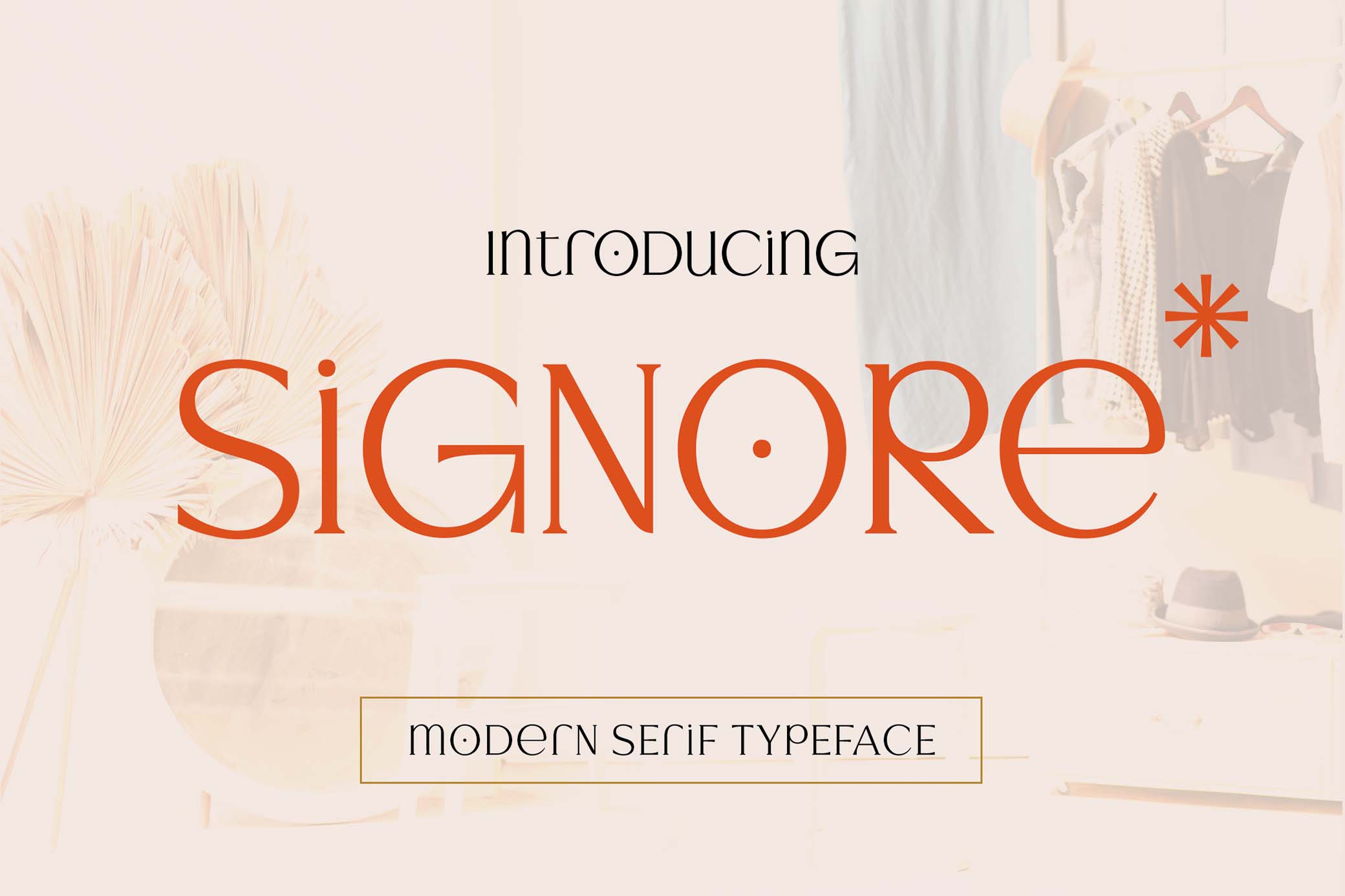
Signore Serif Typeface
The Signore Serif Typeface is perfect for luxury branding, editorial headlines, elegant invitations, high-end packaging, and sophisticated logo design. Its classic serif style combines timeless elegance with contemporary refinement, making it ideal for projects that need a professional yet stylish look.
What makes the Signore Serif Typeface Free Download so exciting is its harmonious blend of tradition and modernity. Each character is carefully designed to exude sophistication, making your typography feel polished and upscale. It’s a font that elevates any design, instantly adding class and authority.
The Signore Serif Typeface family includes multiple weights and styles such as Light, Regular, Semi-Bold, and Bold. These variations allow designers to create flexible typographic hierarchies and versatile layouts while maintaining a cohesive and elegant visual identity.